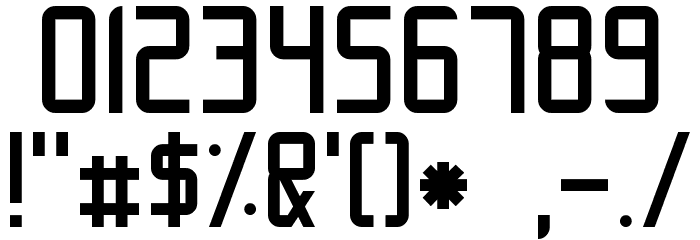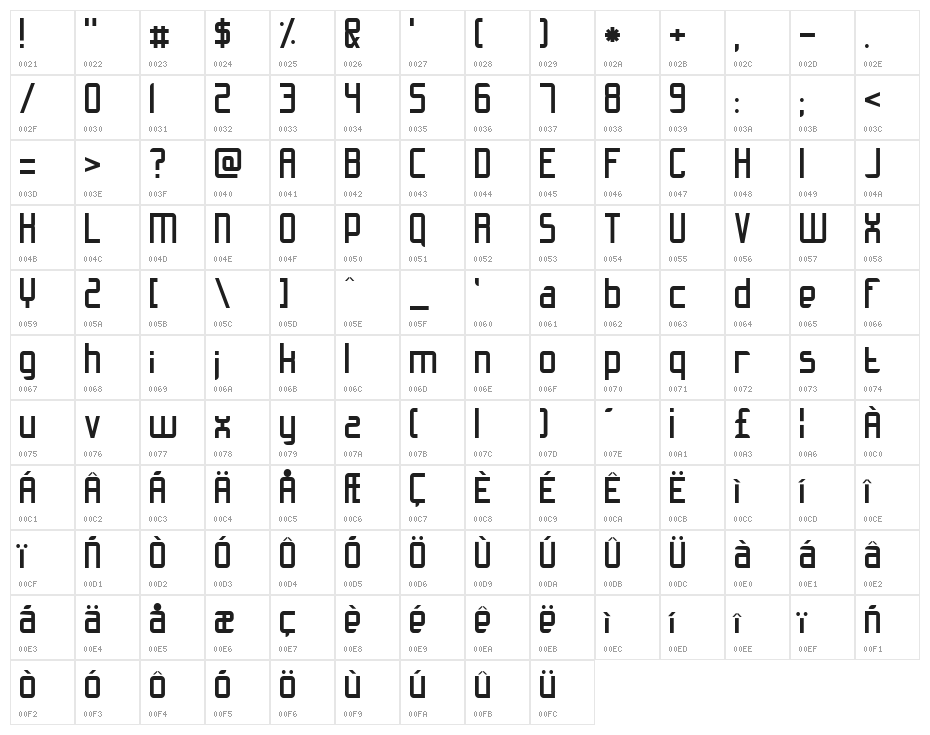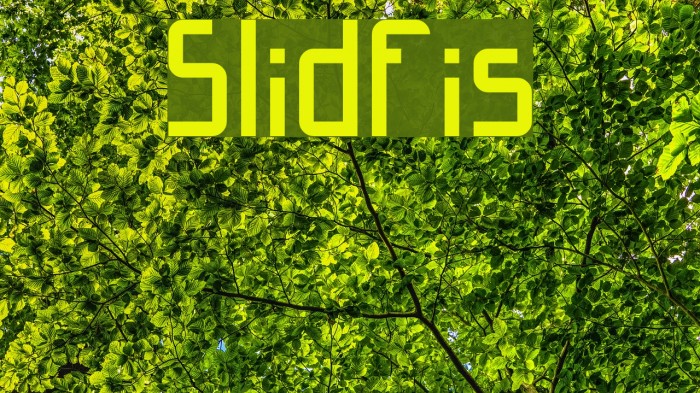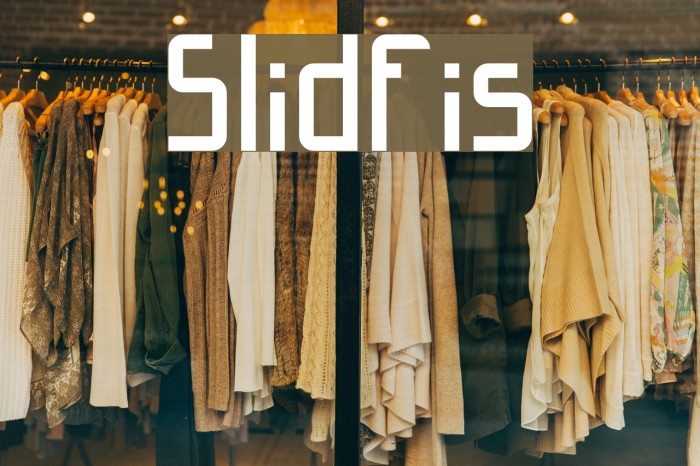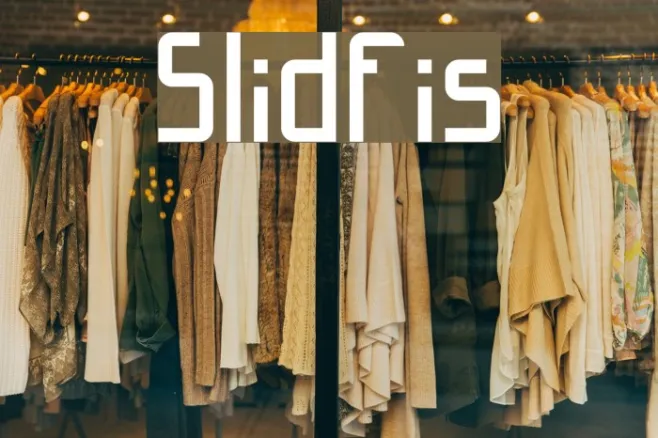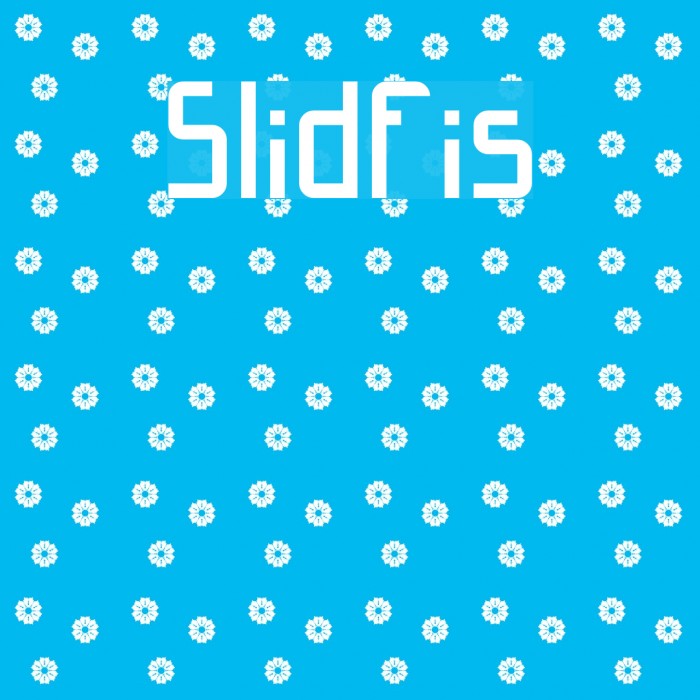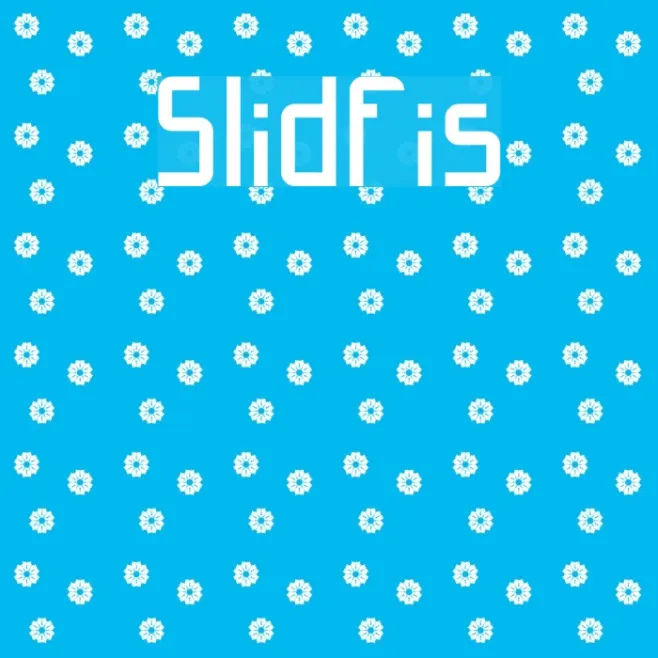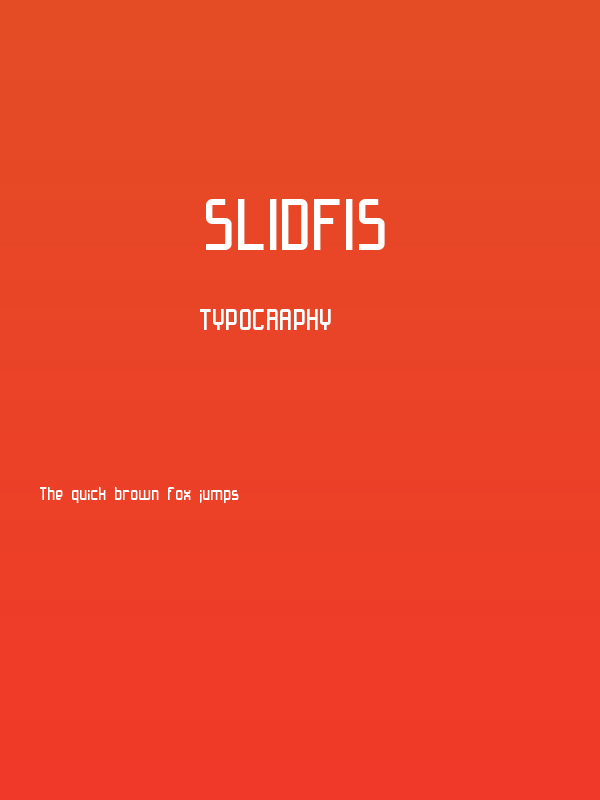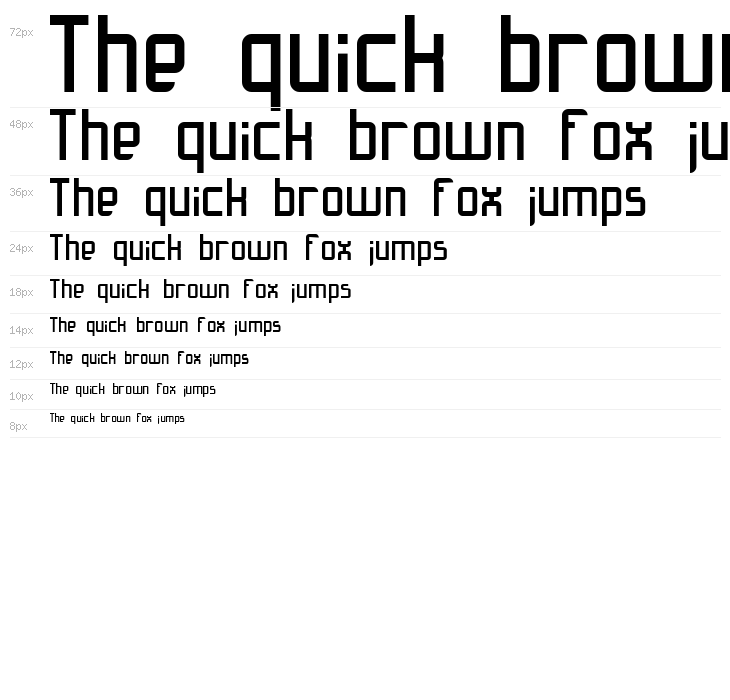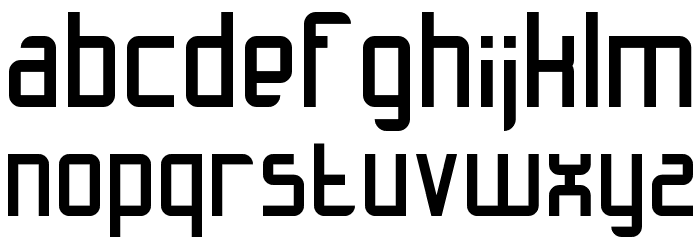
Slidfis Font
Slidfis Description
This font features a geometric and modern design with clean, straight lines and a uniform stroke width. The characters are constructed with a square-like structure, giving them a futuristic and technical appearance. The uppercase and lowercase letters maintain a consistent height, contributing to a cohesive and orderly look. The numerals and special characters are designed to match the overall aesthetic, with a focus on clarity and readability. This font is well-suited for digital interfaces and projects that require a contemporary and minimalistic style.
| Use Case | Headlines, Logos, Digital Interfaces |
| Proposed Projects | Ideal for digital interfaces, tech branding, modern advertising, and minimalist design projects. |